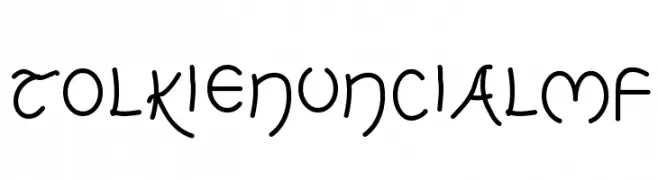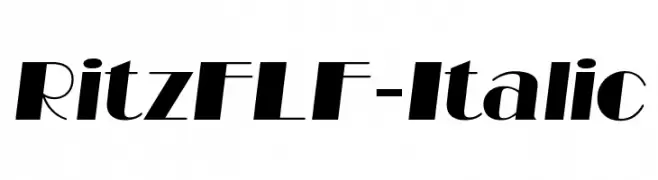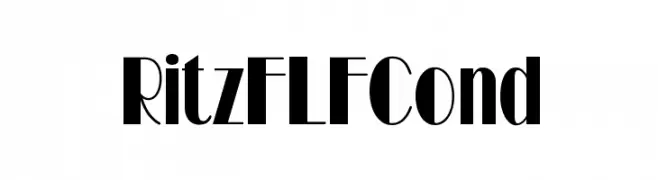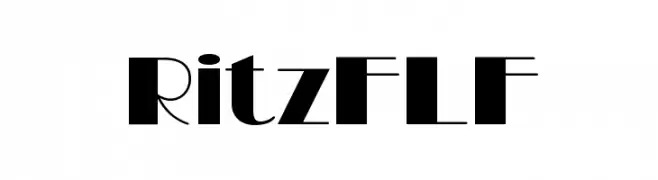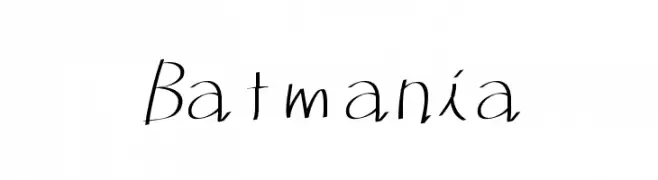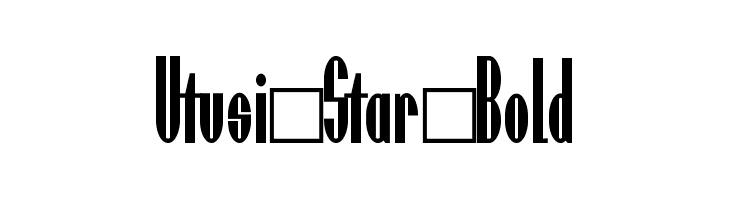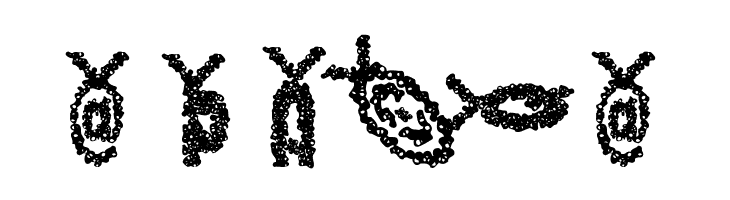
( Fonts by Rick Mueller )
A whimsical, elegant font with a blend of curves and angles, inspired by ancient scripts.
( Fonts by Daniel Gauthier )
A playful, cartoon-like font with bold, rounded characters and a bubbly appearance.
( Fonts by Daniel Gauthier )
A playful, bold font with smooth, rounded edges and a cartoonish style.
( Fonts by Casady & Greene )
A bold, italic font with sharp angles and dynamic movement.
( Fonts by Casady & Greene )
A bold, condensed font with a modern and geometric style.
( Fonts by Casady & Greene )
A bold, high-contrast font with geometric flair and modern elegance.
A playful, hand-drawn font with dynamic strokes and a whimsical style.
A quirky, illustrated display font made of cartoon characters.
A bold, Gothic-style font with characters enclosed in geometric shapes.
A bold, Gothic-inspired decorative font with unique encased letters.